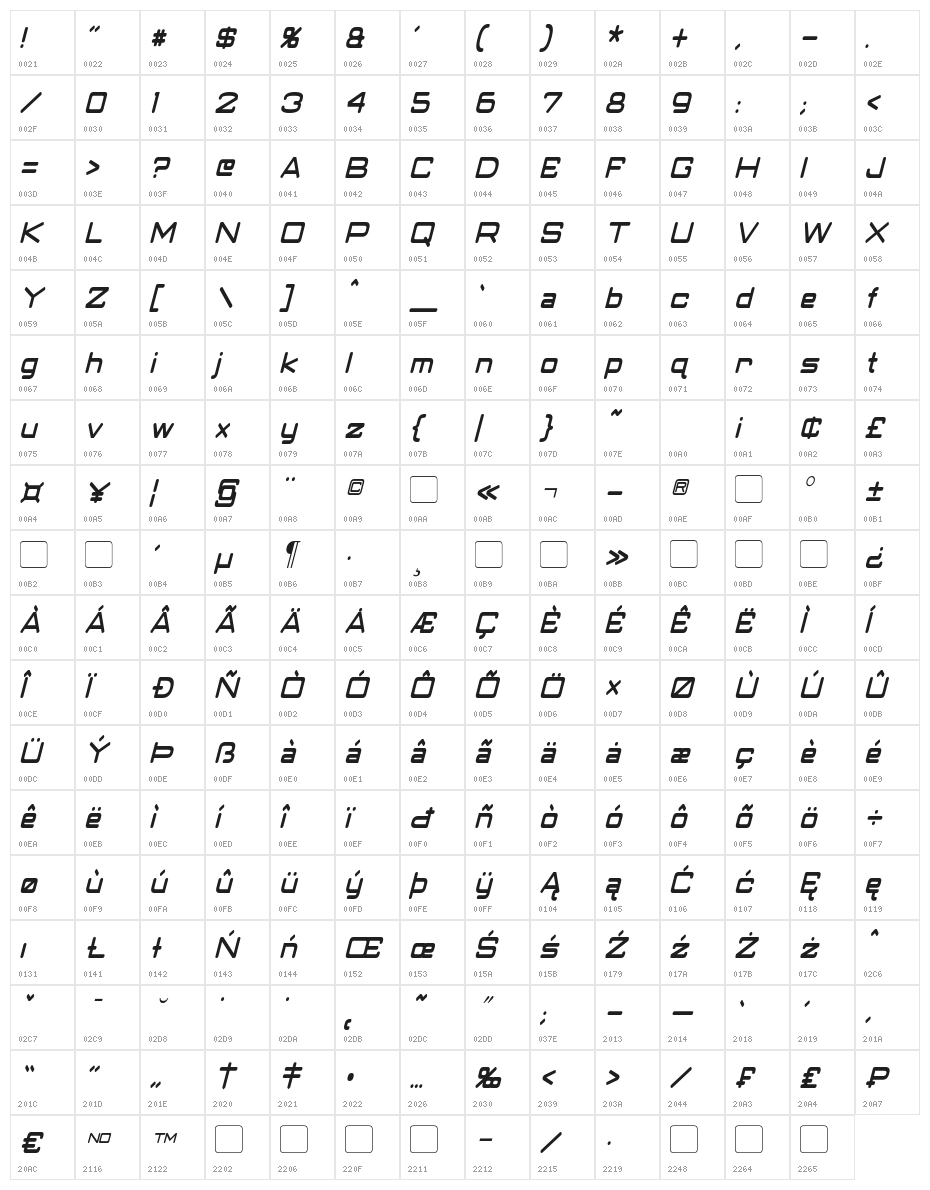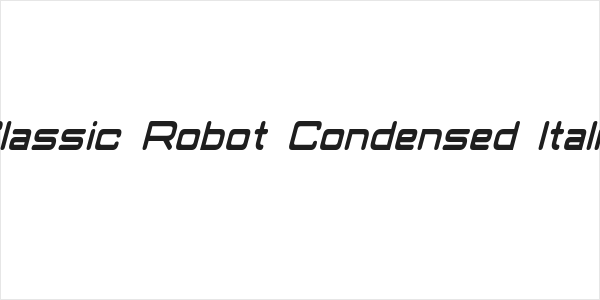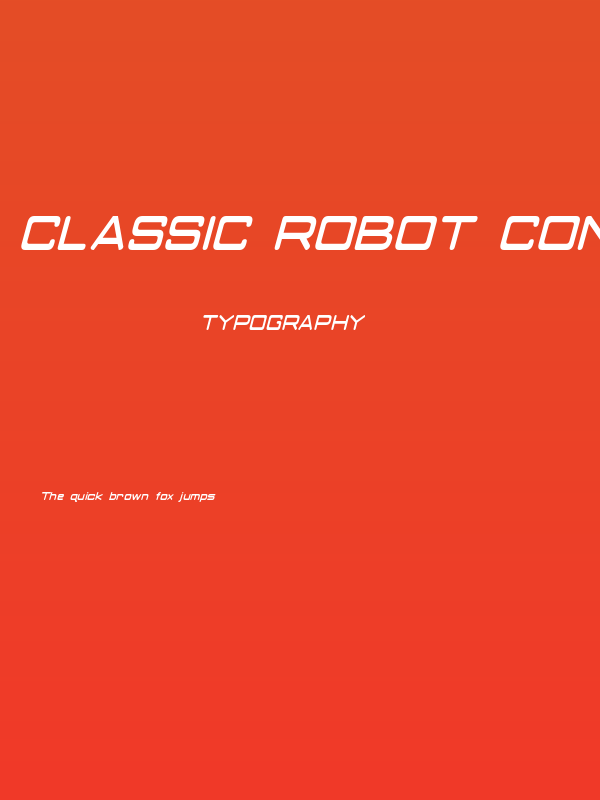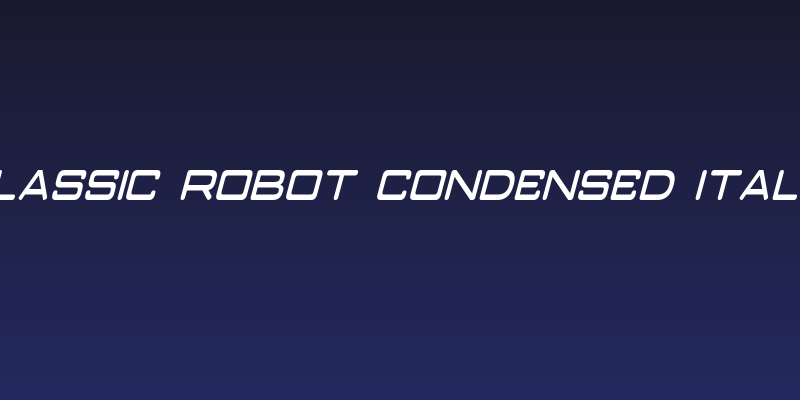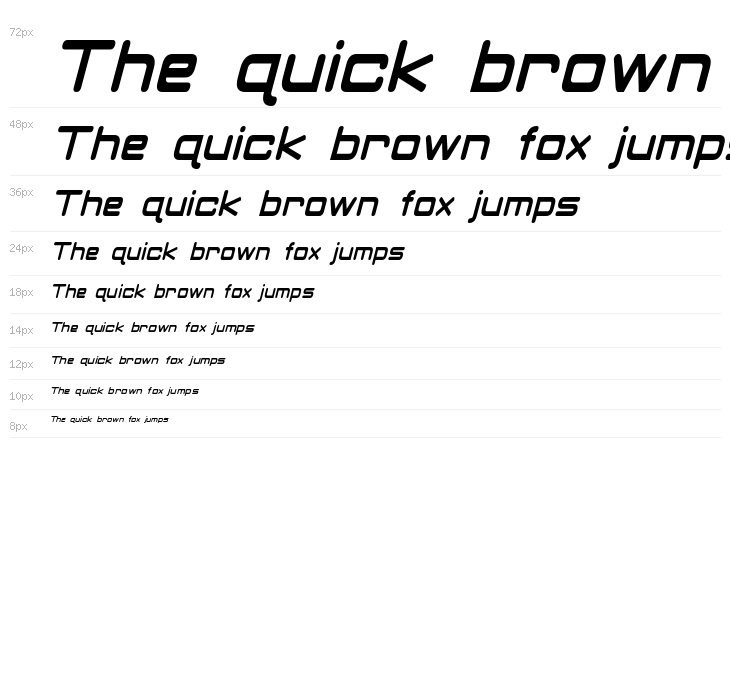
Classic Robot Condensed Italic Font
Classic Robot Condensed Italic Description
This font exhibits a futuristic and sleek design, characterized by its condensed and italicized form. The letters are slightly slanted, giving a sense of motion and modernity. The strokes are uniform, with smooth curves and sharp edges that create a streamlined appearance. The font maintains a consistent weight throughout, ensuring readability while adding a touch of sophistication. Its geometric structure is evident in the precise angles and clean lines, making it ideal for tech-related projects. The numerals and special characters are designed to match the overall aesthetic, providing a cohesive look across all elements.
| Proposed Projects | Ideal for technology branding, sci-fi posters, modern web design, and innovative product packaging. |